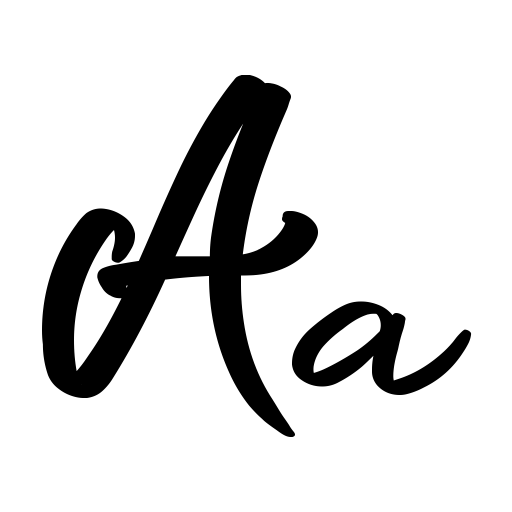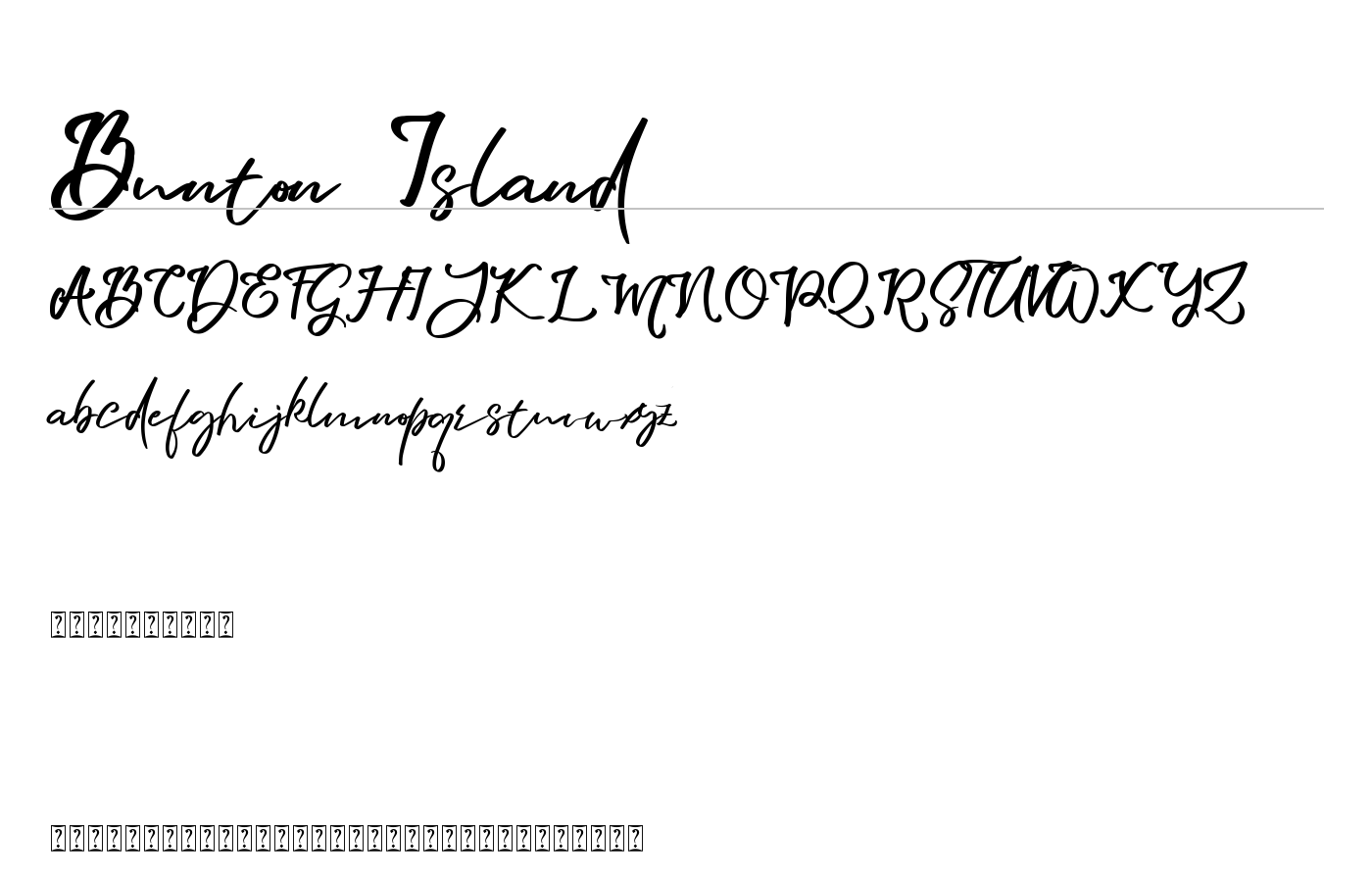
Bunton Island is an elegant script font with a flowing, handwritten style that combines both bold and delicate strokes for a dynamic, artistic feel. Its high contrast and fluid letterforms make it ideal for stylish branding, invitations, or any design that needs a personal, sophisticated touch. This font works best in headlines or logos where its unique character can truly shine.
Bunton Island Font